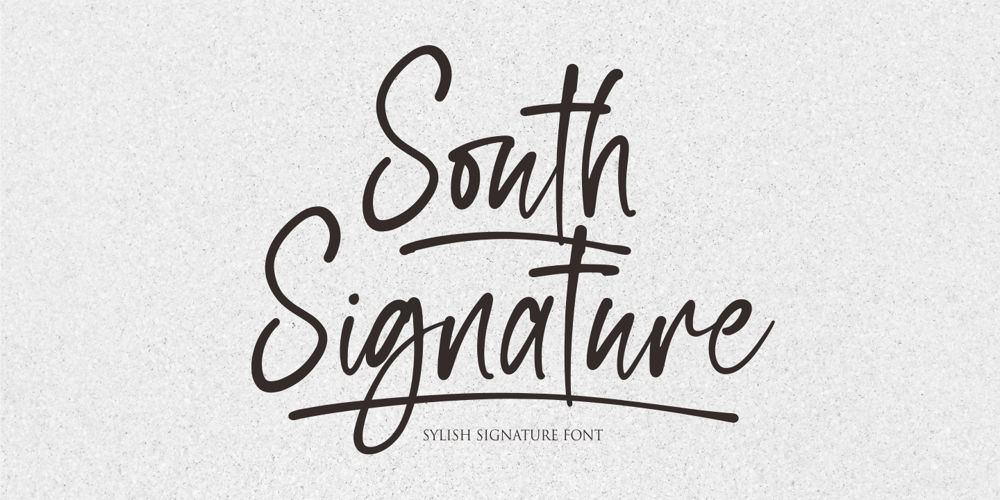
South Signature Font Family was designed by Siti Nurjanah and published by NJ Studio. South Signature contains 1 styles and family package options. Hi…Thank for your visit :)South Signature a stylish signature font. It features ligatures characters that will take your projects to the next level!This font is PUA code which means you can easily access all the glyphs that are full of natural! It also features many special features including glyphs. font designs that are made for various vector designs, printing such as digital wedding blogs, online shops, social media, while printing can be used in the field of product clothing, accessories, bags, pins, logos, business cards, watermarks and many others …so it can make your product look natural and attractive, and also Multilingual support!!!Happy design …